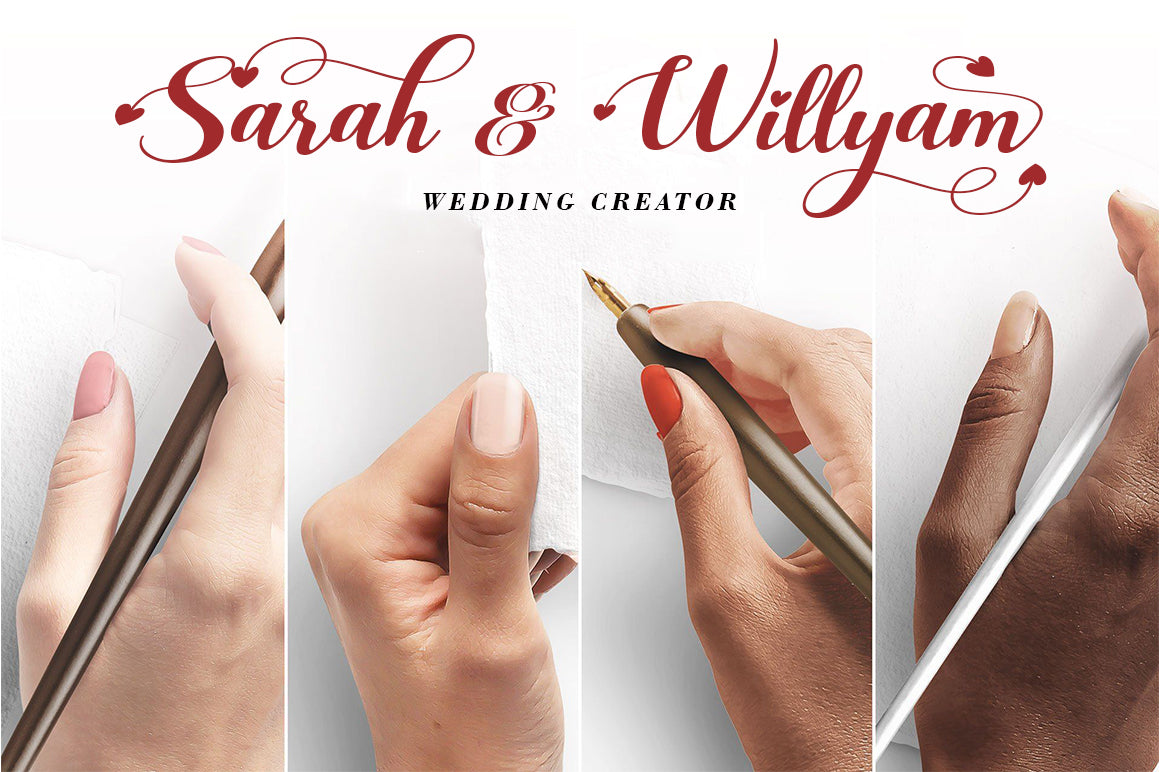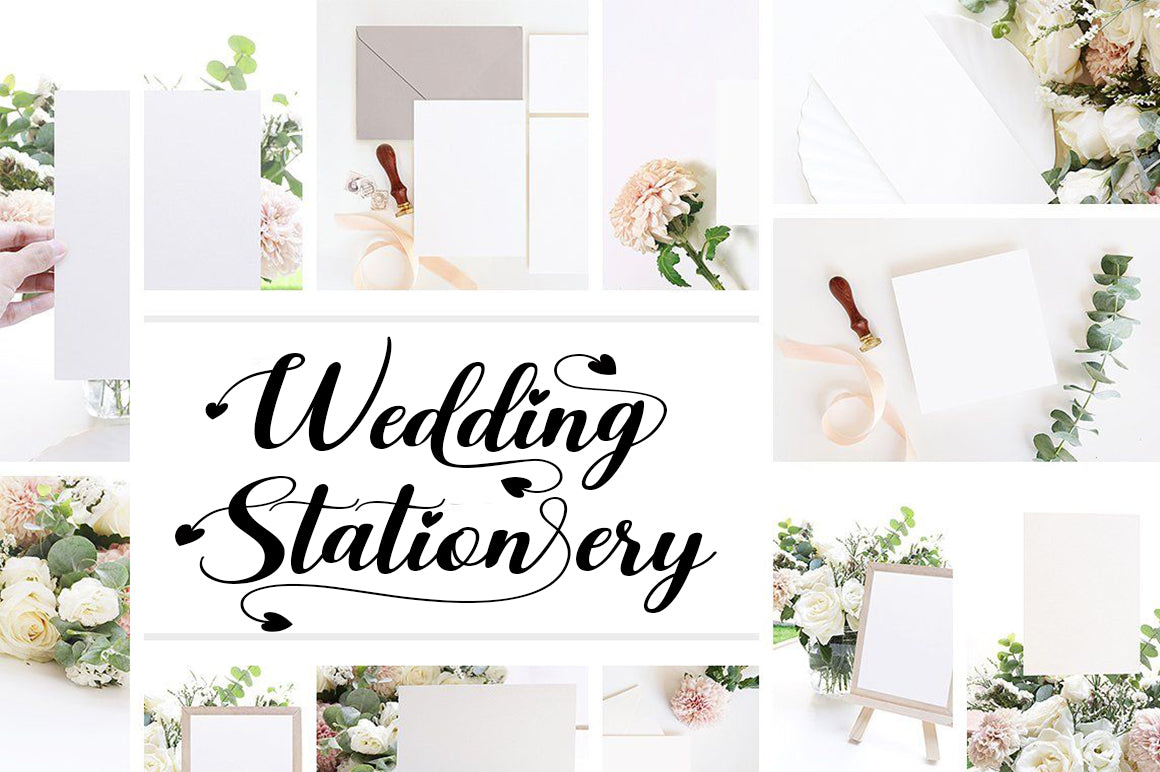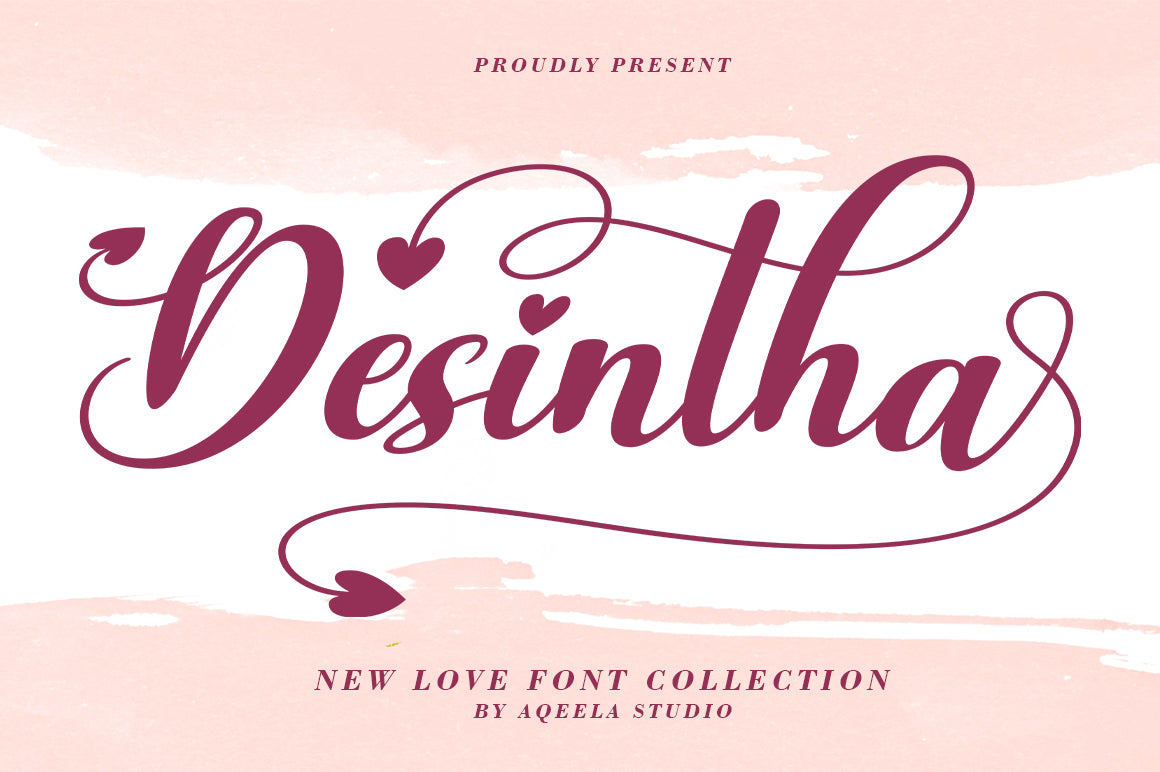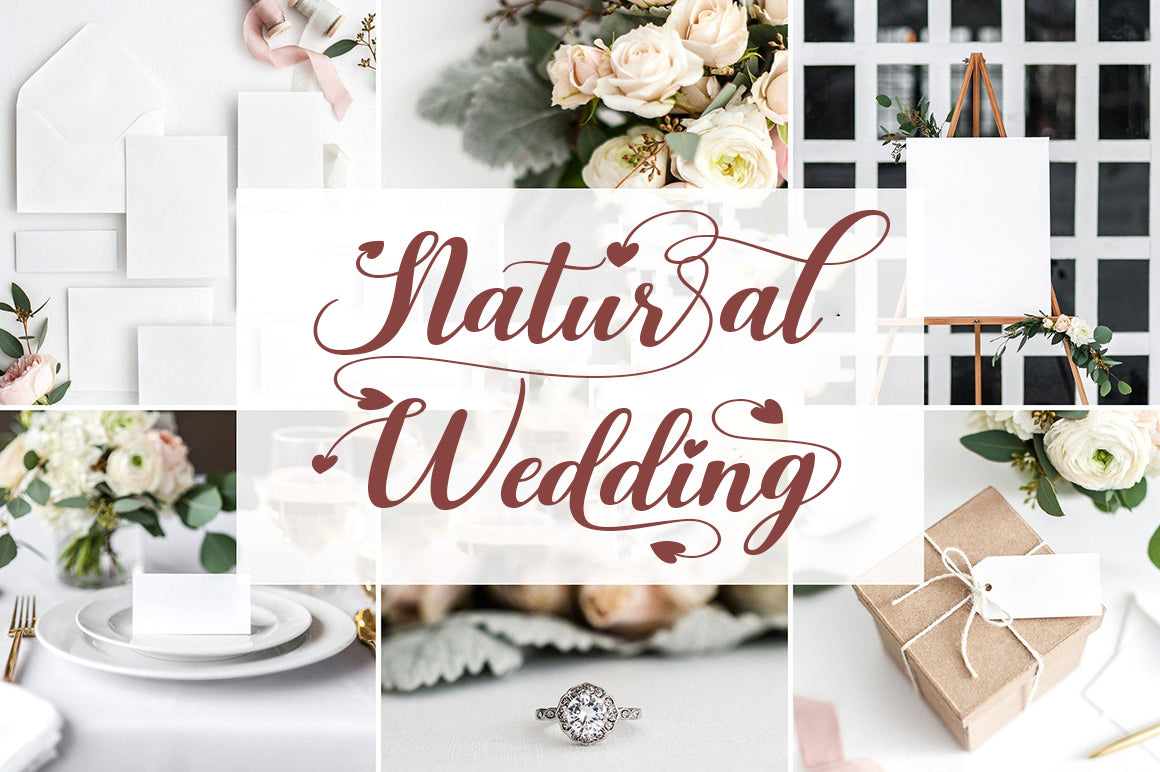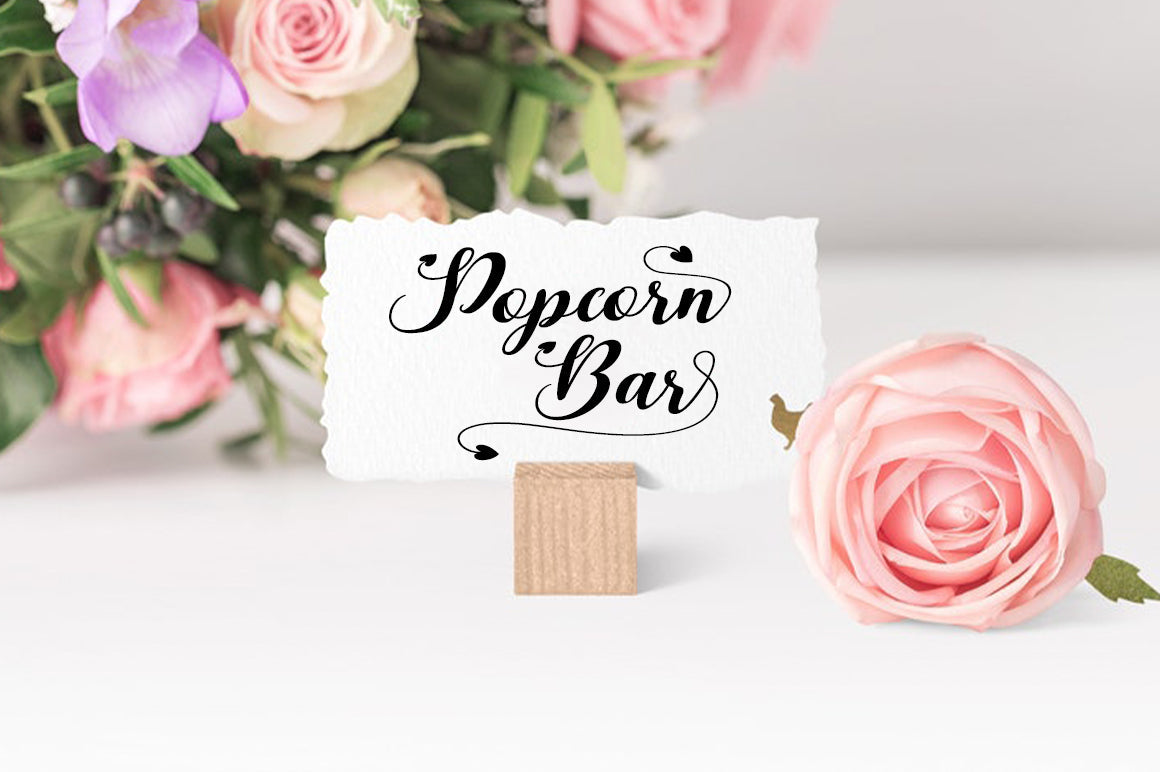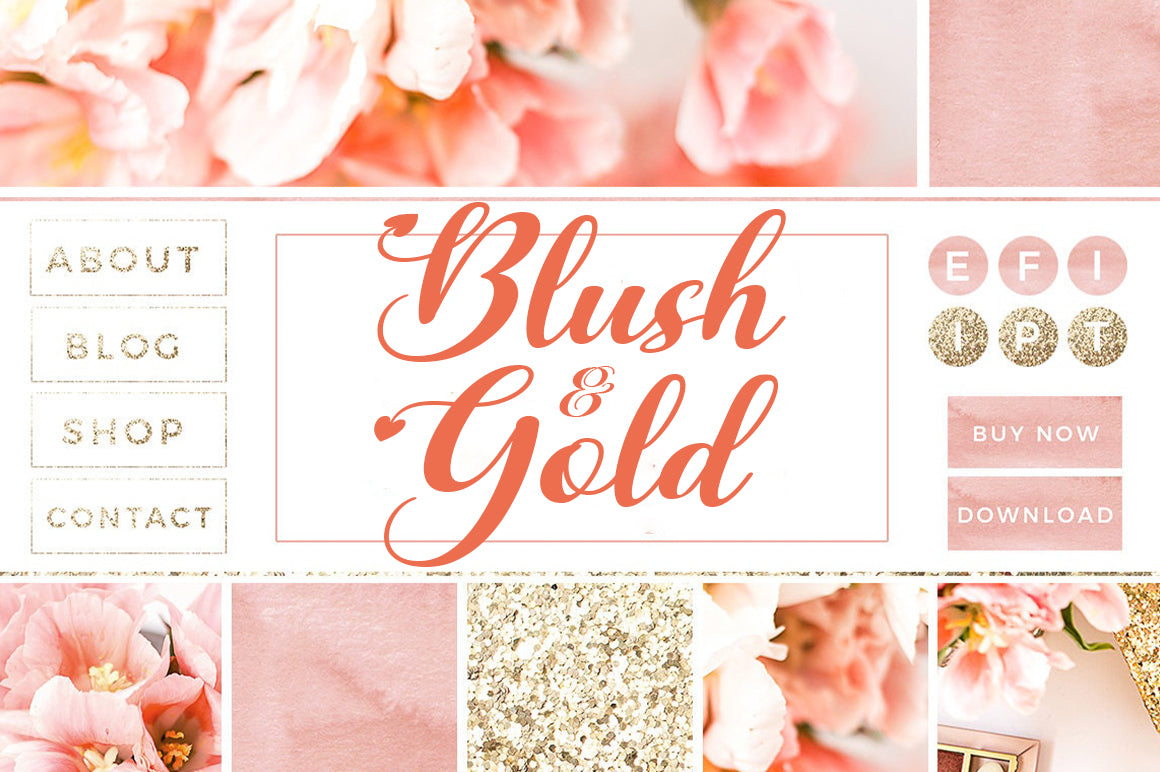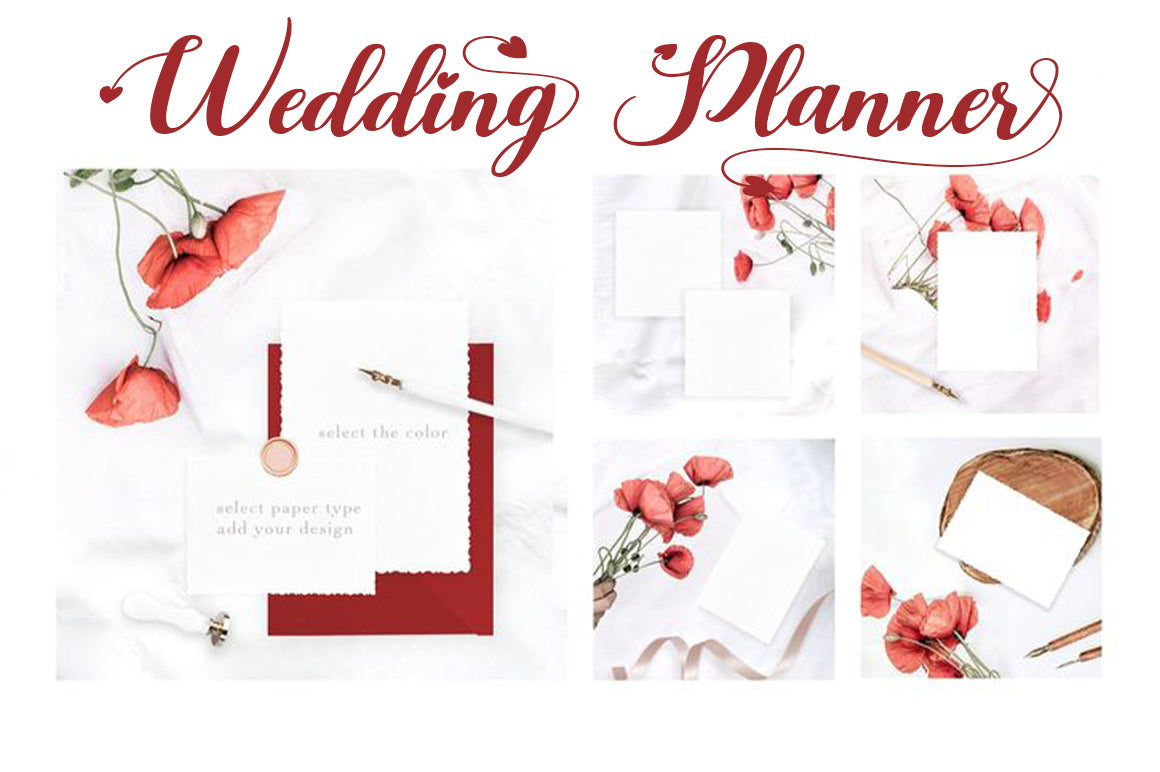
Desintha
Desintha is a romantic and sweet calligraphy typeface with characters that dance along the baseline. It will add a luxury spark to any design project that you wish to create! This font is PUA encoded which means you can access all of the amazing glyphs and ligatures with ease! Files include: Desintha.otf Desintha .ttf OpenType features with alternative styles, ligatures, and multiple language support. Untuk mengaktifkan alternatif OpenType Stylistic, Anda memerlukan program yang mendukung fitur OpenType seperti Adobe Illustrator CS, Adobe Indesign & CorelDraw X6-X7, Microsoft Word 2010, atau yang lebih baru.